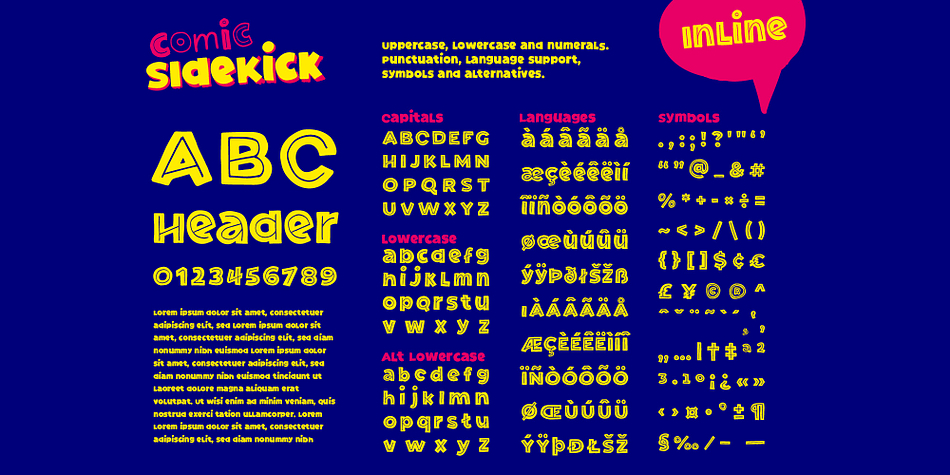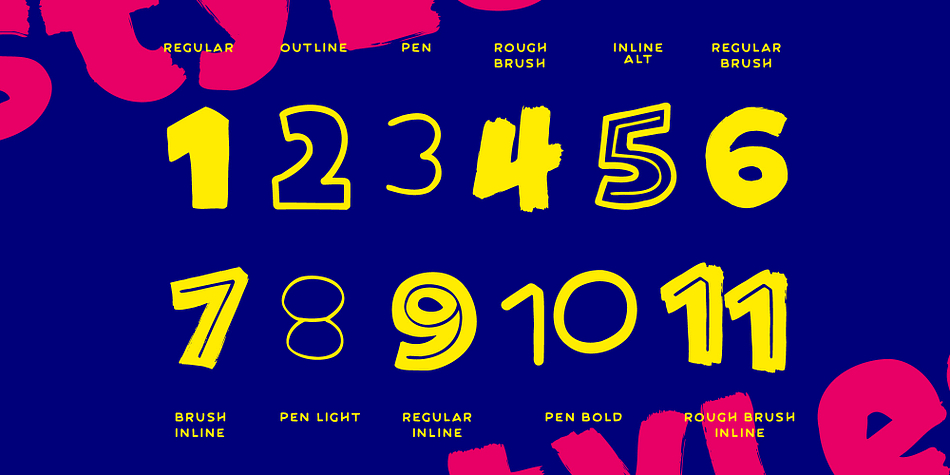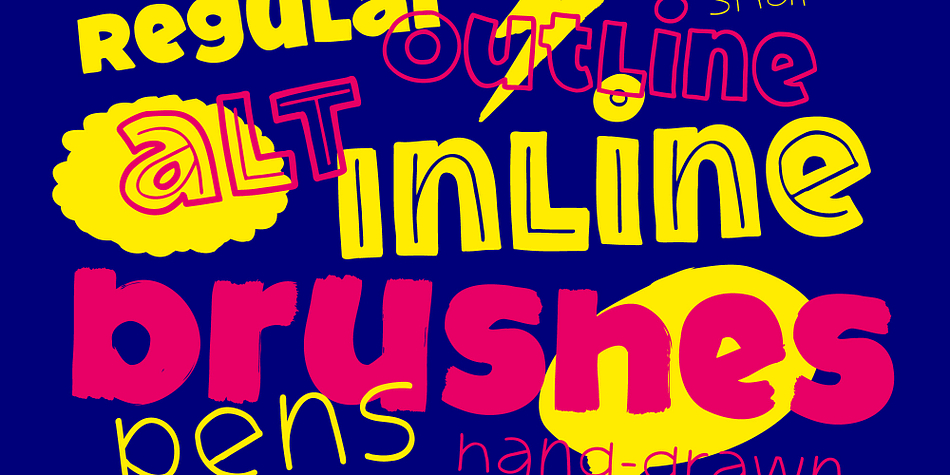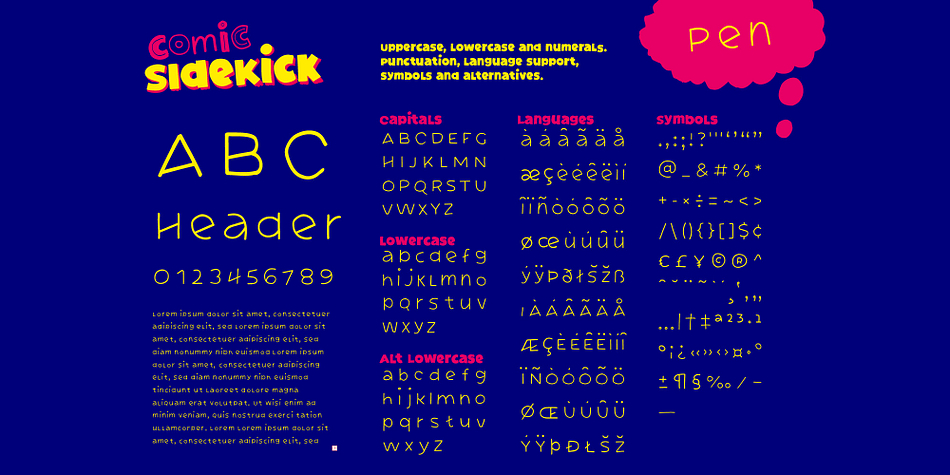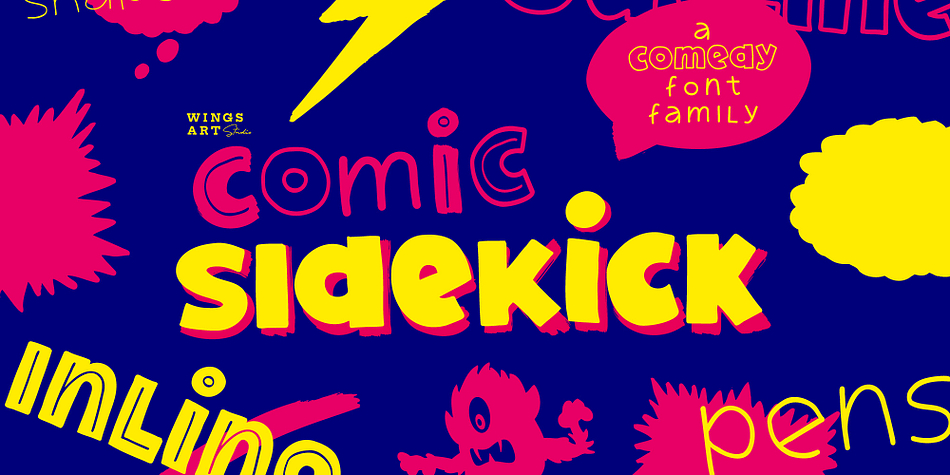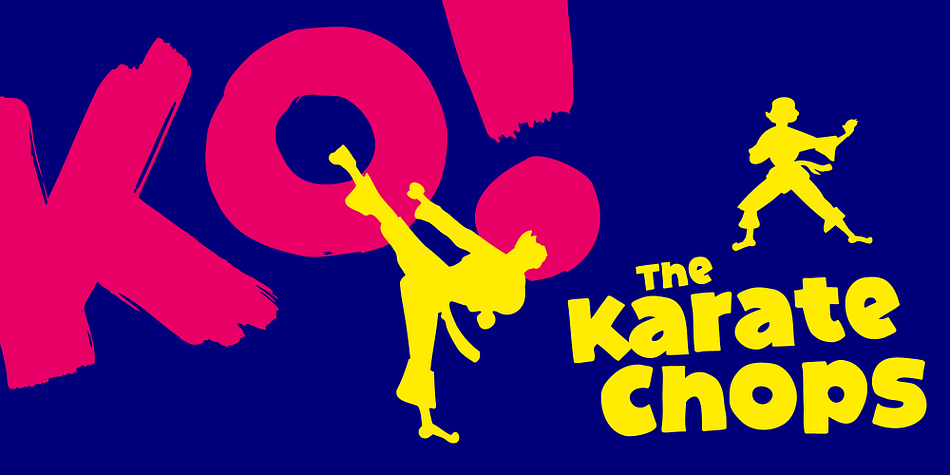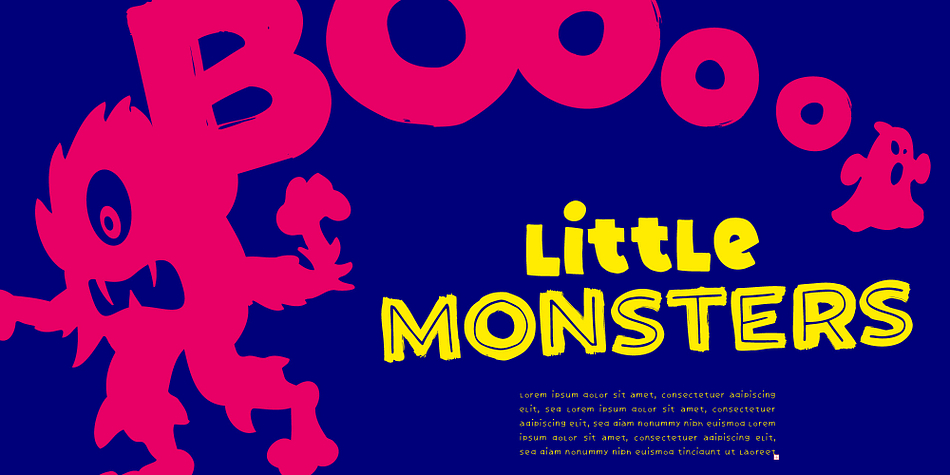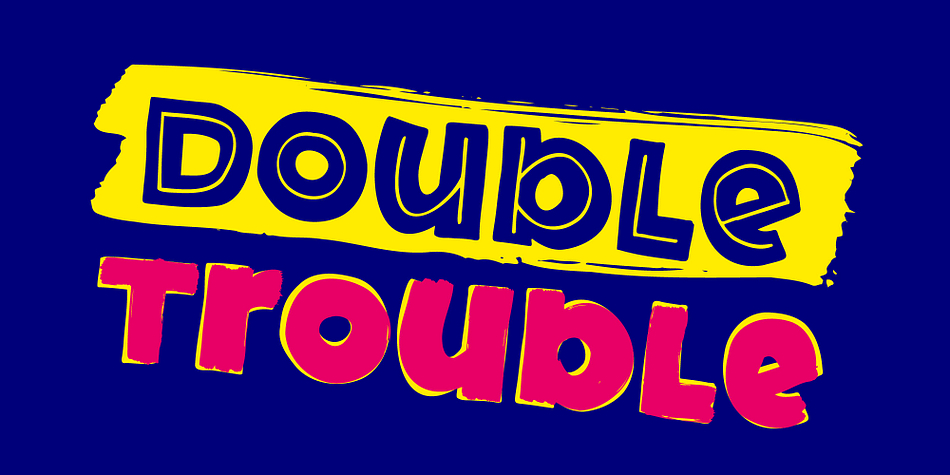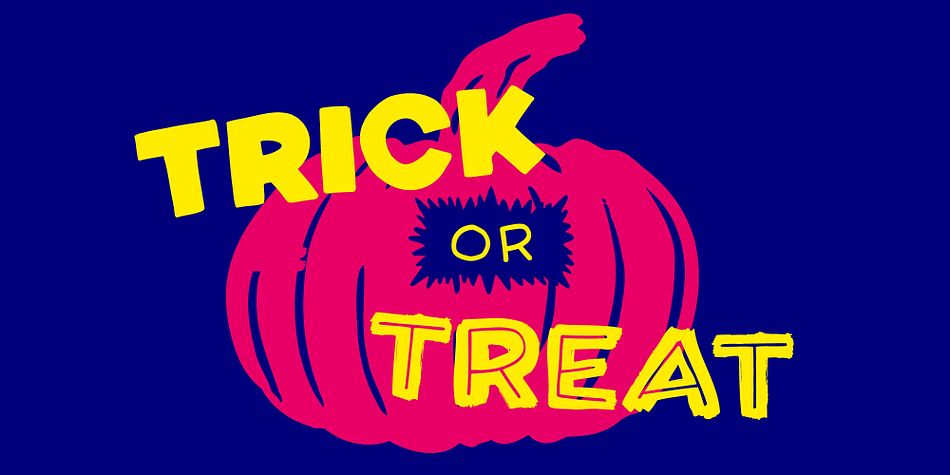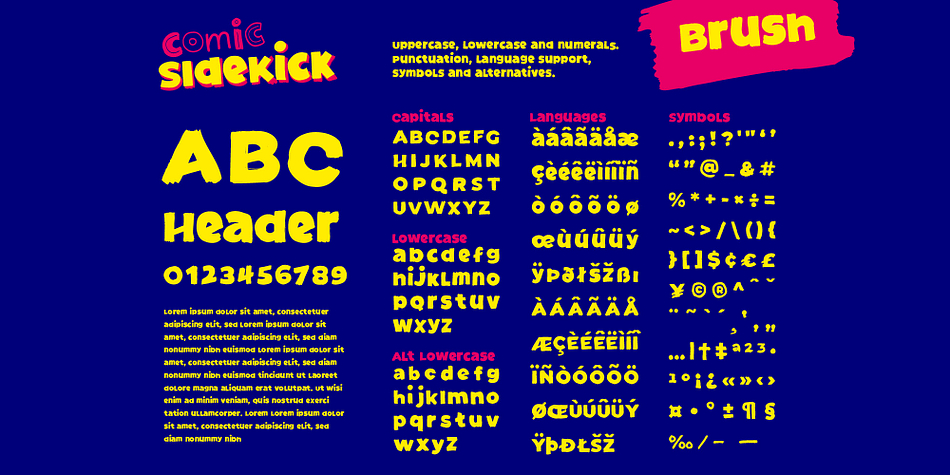
Comic Sidekick
Comic Sidekick is a sans serif and dingbat font family. This typeface has twelve styles and was published by Wingsart Studio.
Comic Sidekick: A Screwball Comedy Font Family!
A hand-drawn brush font with multiple styles, perfect for light-hearted designs such as comics and children’s books, film posters, titles, games, and packaging.
This 11-font family includes variations on a core theme that can be layered up for interesting effects or used individually for a cleaner look. Led by its regular chunky design, this is accompanied by outline, inline, brush, and pen variants offering multiple options to mix and match while staying within consistent boundaries. Also included are a bundle of comic shapes including speech bubbles, underlines, banners, and other random objects for experimenting with.
Comic Sidekick Font Family:
- Regular
- Inline
- Inline Alternate
- Outline
- Brush
- Brush Inline
- Rough Brush
- Rough Brush Inline
- Pen
- Pen Light
- Pen Bold
- Shapes